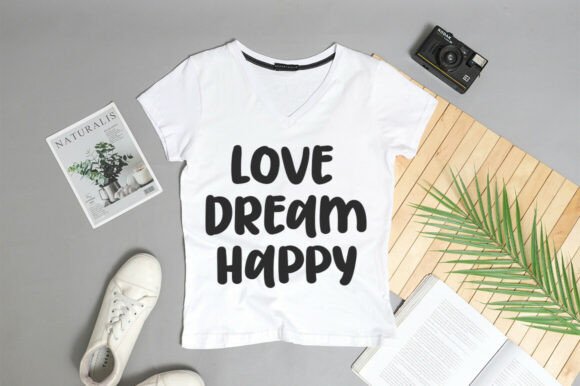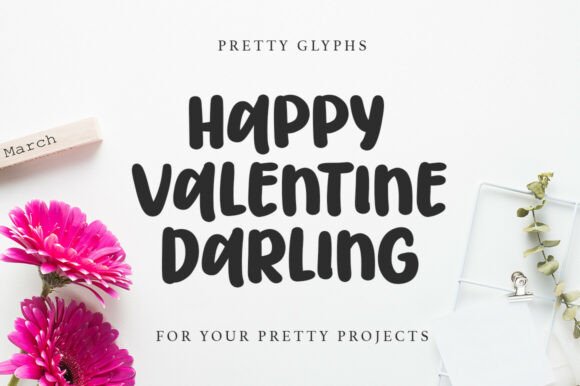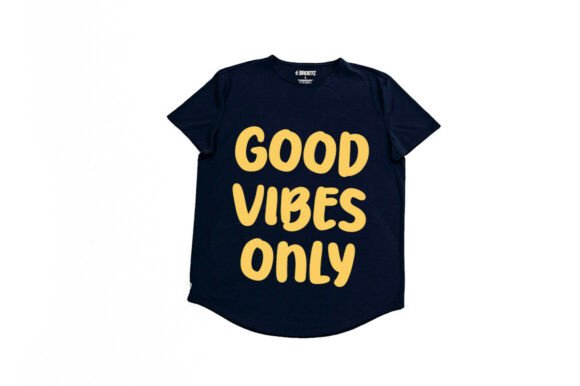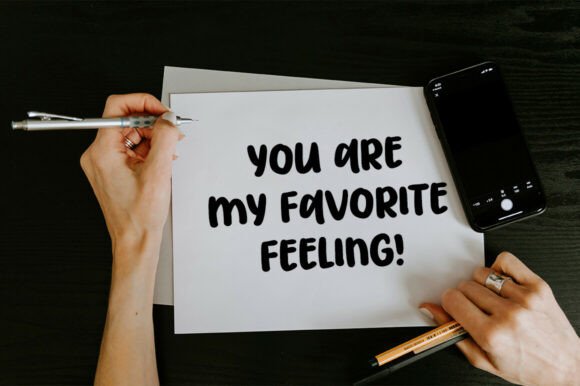
Introduction to Rushly Font
Have you ever spent hours pouring your heart into a design project, only to feel like something’s missing? That’s where the magic of the Rushly Font comes in – a beautiful handwritten font that adds a personal touch to your creative projects.
As designers, we’re always on the lookout for the perfect design resource to elevate our work. The Rushly Font is more than just a pretty face – it’s a high-quality, free download that’s perfect for everything from logos and branding to social media posts and invitations. With its organic style and natural rhythm, this font is incredibly flexible and can be used in a variety of creative projects, from crafting to packaging design.
What sets the Rushly Font apart is its ability to strike the perfect balance between casual and elegant. Whether you’re working with a transparent background or a busy design, this font adds charm and character without trying too hard. And with its smooth curves and slightly imperfect strokes, your text will feel more personal and emotional, helping your message connect instantly with your audience.
Key Features of Rushly Font
- High-quality design for creative projects, ensuring a professional look and feel.
- Unique, modern design style that can add a touch of elegance and sophistication to any creative project.
- Perfect for use in graphic design, digital art, and other creative fields where a high-quality font is essential.
Honest Review: Rushly Font
As a designer, I’m always on the lookout for high-quality design resources that can elevate my creative projects. Recently, I came across the Rushly Font, and I’m excited to share my thoughts on this free download.
- Unique style: The Rushly Font has a distinct, modern aesthetic that sets it apart from more common fonts.
- Clear typography: The font’s design ensures that text is easy to read, even at smaller sizes.
- Limited language support: The Rushly Font may not support all languages, which could be a limitation for designers working on multilingual projects.
- Not suitable for all designs: While the font is versatile, it may not be the best choice for projects that require a more traditional or formal look.
Overall, I think the Rushly Font is a valuable design resource, especially for designers working on modern, creative projects. With its unique style and clear typography, it’s a great addition to any design toolkit.
Tips for Getting the Most Out of Rushly Font
Use Rushly Font in conjunction with other design elements to create visually appealing designs. Experiment with different font sizes, colors, and arrangements to find the perfect look for your creative project.
Rushly Font is perfect for use in digital designs, such as social media graphics, infographics, and presentations. It’s also great for use in print designs, such as business cards, brochures, and posters.